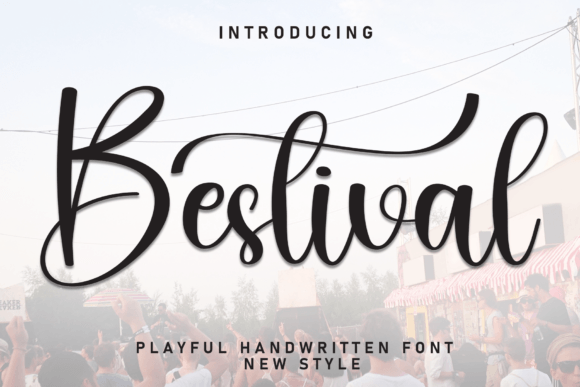
Have you ever stumbled upon a font that sparks a burst of inspiration and sets your imagination ablaze? For many designers, the perfect script font can be a game-changer, elevating their work from ordinary to extraordinary. And that’s exactly what the Bestival Font does – it brings a touch of elegance and charm to any design project.
This beautiful handwritten script font is designed to add a personal touch to invitations, branding, and social media. With its fluid strokes and natural flow, Bestival Font creates a captivating and sophisticated look that’s perfect for making a lasting impression. Whether you’re a seasoned designer or a creative enthusiast, this font is a valuable addition to your toolkit, offering a sense of warmth and creativity to any project.
Bestival Font Key Features
- Font Family: Bestival Font is a custom-designed font, with multiple styles and weights available.
- Size: The font size is scalable, making it suitable for various applications, from small text to large display headings.
- Resolution: Optimized for high-resolution displays, ensuring crisp and clear text rendering.
- Unique Characteristics: The font features a distinctive, hand-drawn aesthetic with a mix of bold and delicate lines, giving it a unique and eye-catching appearance.
- Weight and Style Options: Available in multiple weights (e.g., Light, Regular, Bold, Extra Bold) and styles (e.g., Italic, Oblique) to suit different design needs.
Bestival Font Review
I recently had the chance to work with the Bestival Font, and I must say it’s an interesting combination of style and functionality.
- ✨ The font’s unique and playful style, inspired by the iconic Bestival festival, is sure to grab attention and add a touch of whimsy to any design project.
- ✨ The font is highly customizable, with a wide range of weights and styles available to suit different design needs.
- ✨ The font is well-suited for use in digital media, including web and mobile applications, where its bold and eye-catching style can really shine.
- ⚠️ The font’s bold and playful style may not be suitable for all design projects, particularly those requiring a more professional or formal tone.
- ⚠️ Some users may find the font’s unique style to be overly distracting or difficult to read in certain contexts.
- ⚠️ The font’s customization options, while extensive, can also be overwhelming for users who are not familiar with advanced font design tools.
Overall, I think the Bestival Font is a great choice for designers who are looking to add a touch of personality and whimsy to their projects. While it may not be suitable for all design needs, it’s a great option for those who want to make a statement and stand out from the crowd.
Tips for getting the most out of Bestival Font in Canva: Use it for festival-themed designs, such as event posters or social media graphics.
Tips for getting the most out of Bestival Font in Adobe Photoshop/Illustrator: Use it for designing festival-themed merchandise, such as t-shirts or stickers.
Tips for getting the most out of Bestival Font in PowerPoint/Word: Use it for creating festival-themed presentations or documents, such as event schedules or itineraries.
Bestival Font is commonly used for:
- Festival-themed designs, such as posters and social media graphics.
- Designing festival-themed merchandise, such as t-shirts and stickers.
- Creating festival-themed presentations and documents.